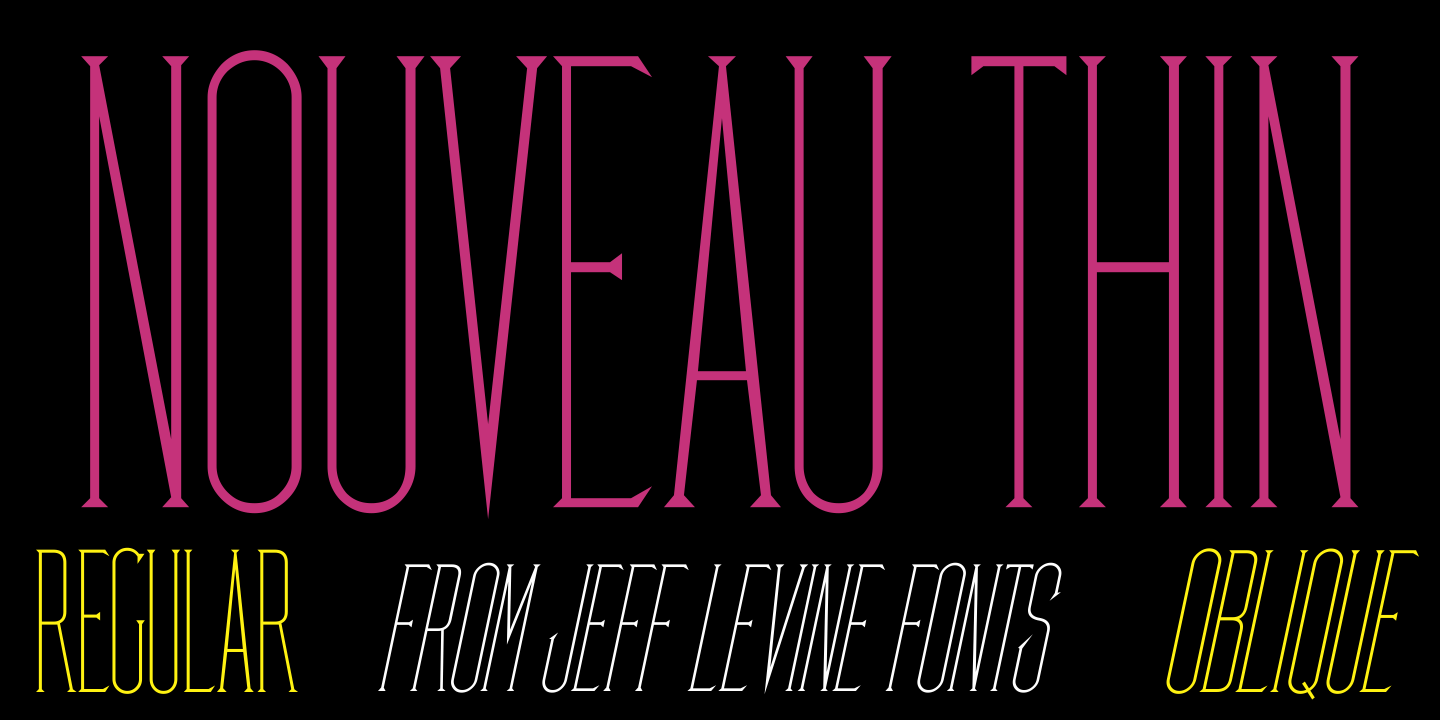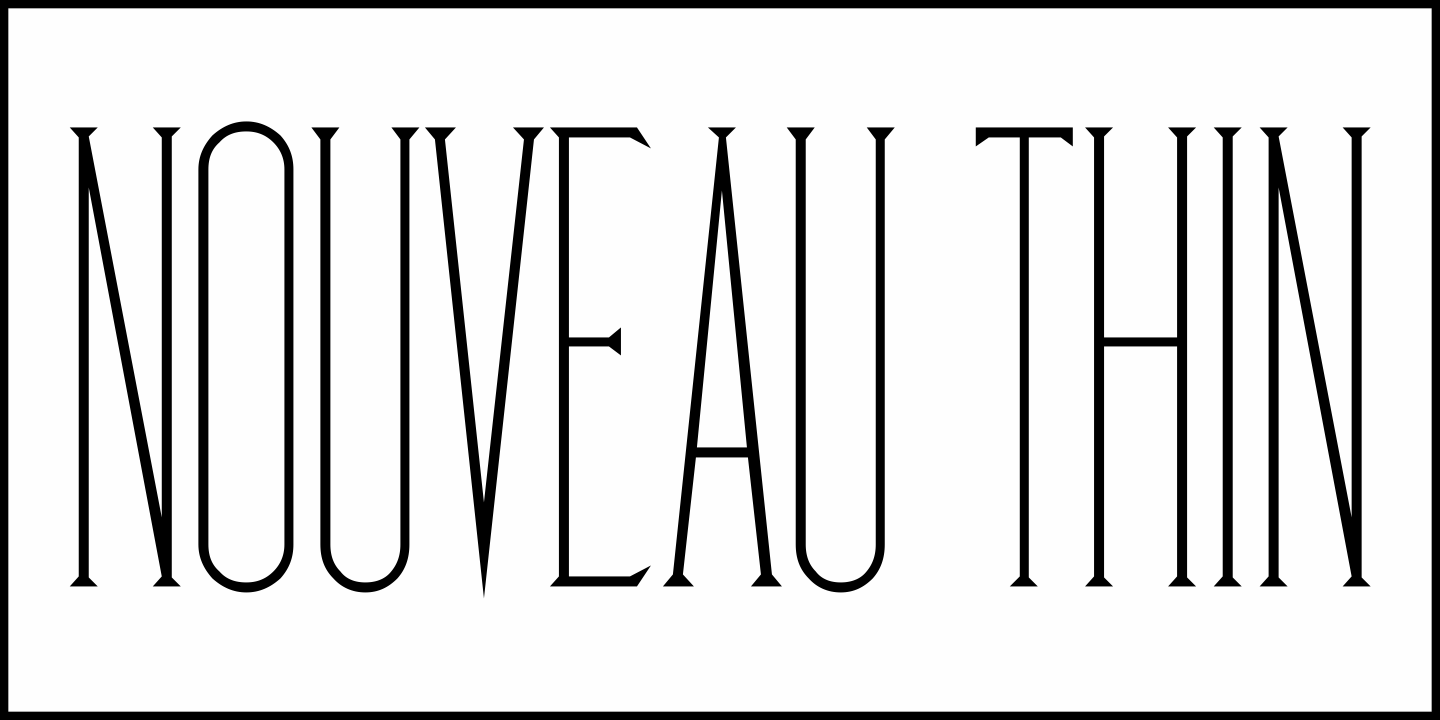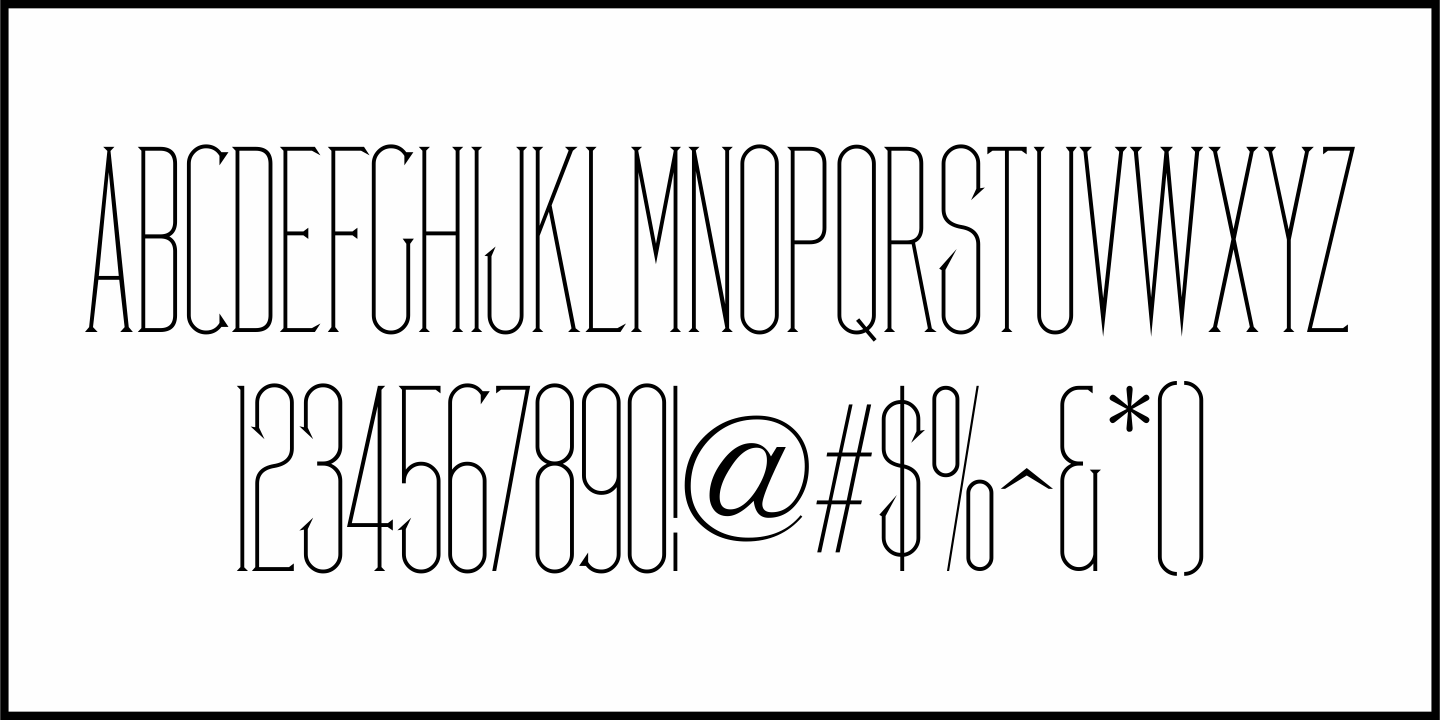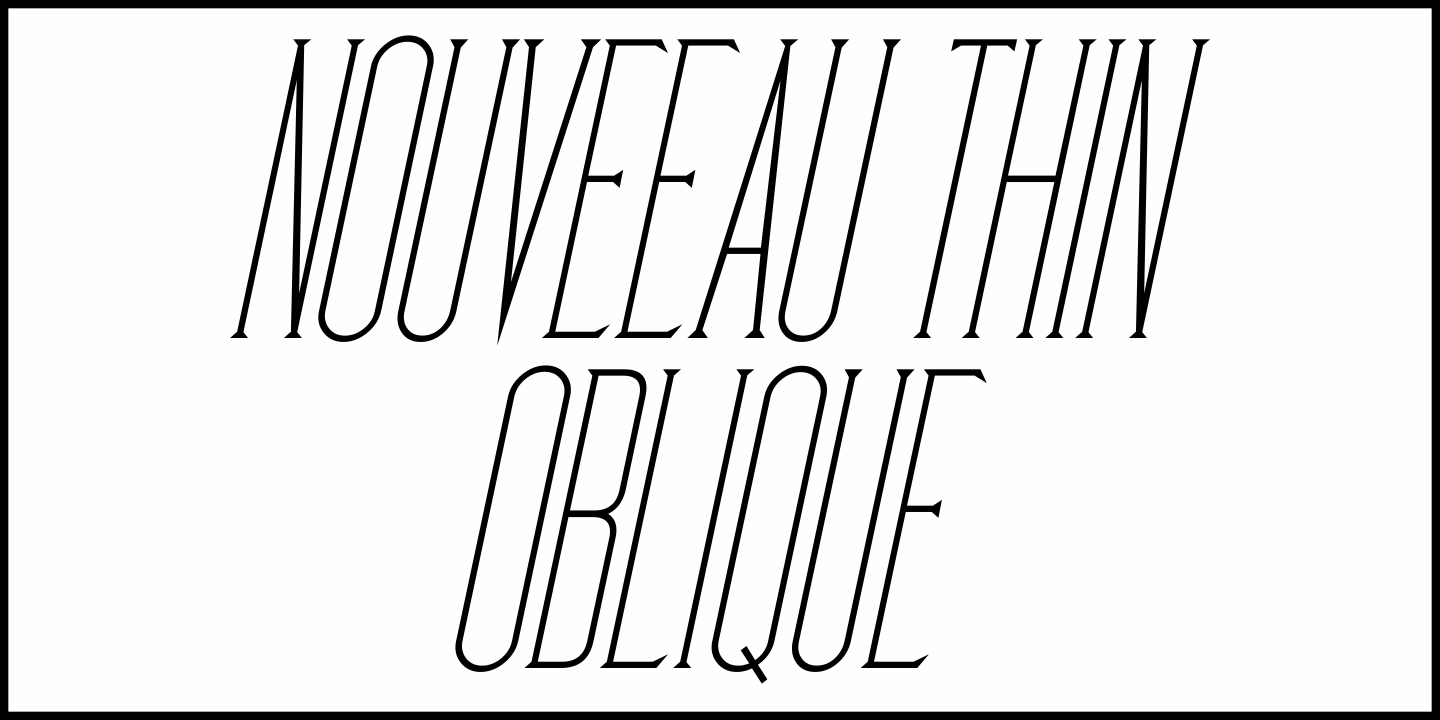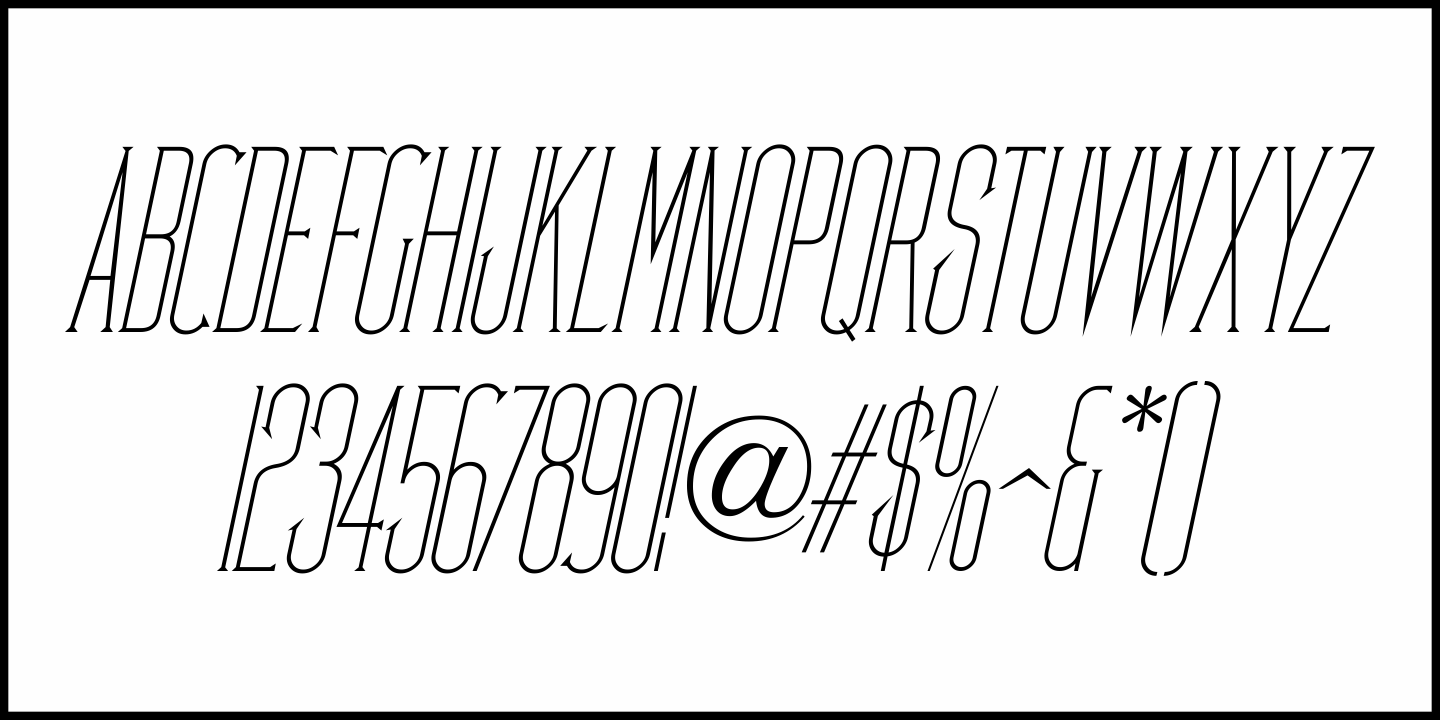
Nouveau Thin
A condensed, light face spurred serif alphabet was shown on an antique catalog page from Spon & Chamberlain Publishers as “French”. The catalog likely sold tools and dies to stonecutters for making inscriptions in marble, granite and so forth.
This elegant design is available digitally as Nouveau Thin JNL in both regular and oblique versions.
Nouveau Thin JNL Regular by Jeff Levine Fonts